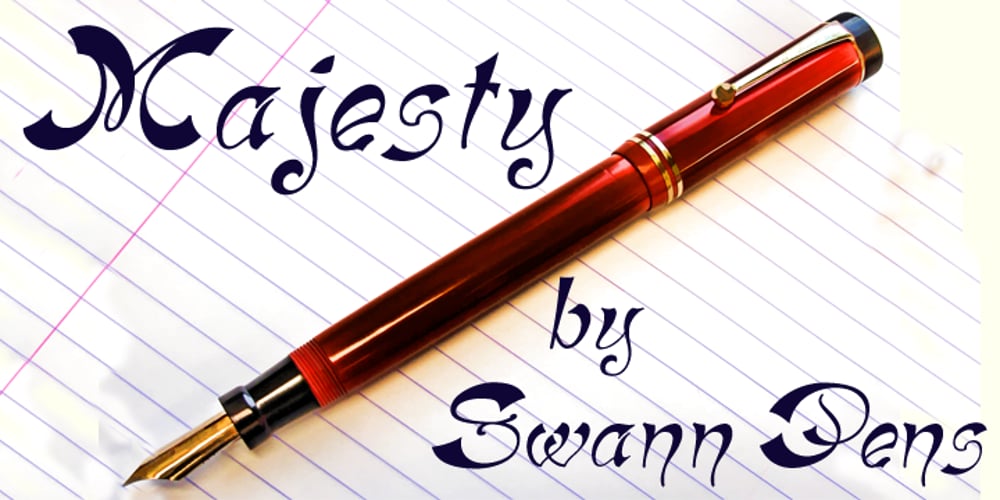
Haldane Font Family was designed by Paul James Lloyd and published by Greater Albion Typefounders. Haldane contains 2 styles and family package options. Haldane is an Art Nouveau ‘punctuated’ (i.e. not joined) script, ideal for certificates, calligraphic lettering and signage. Stroke width vary from almost hairline to extremely wide. Great fun for every application!